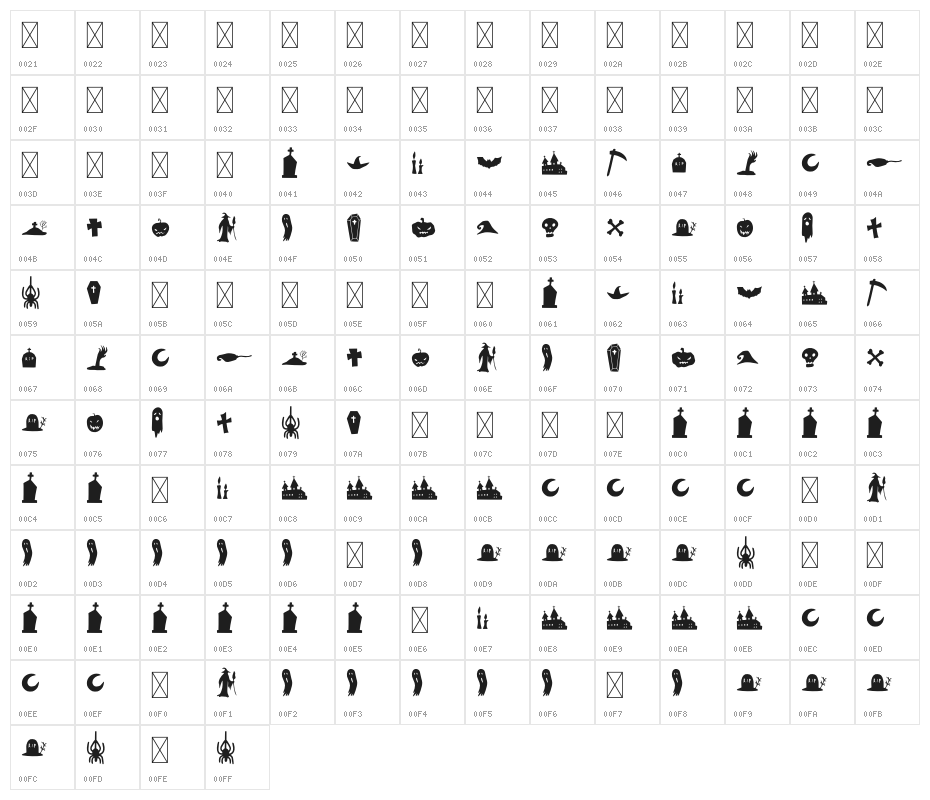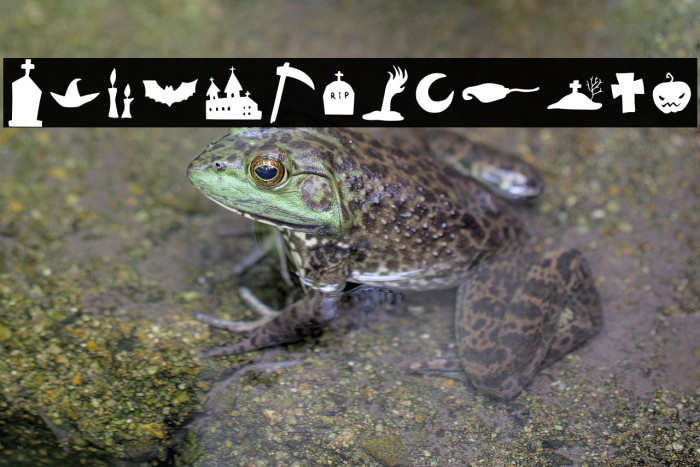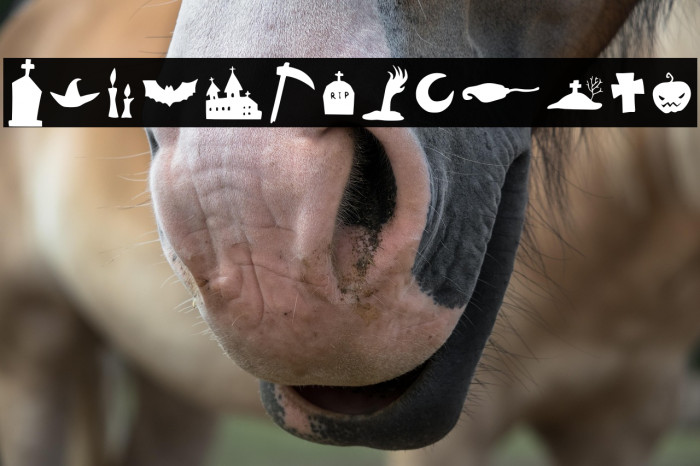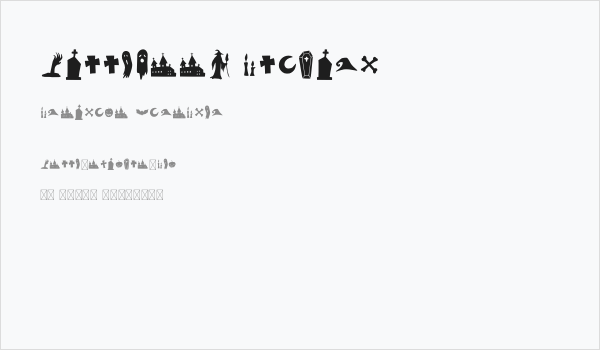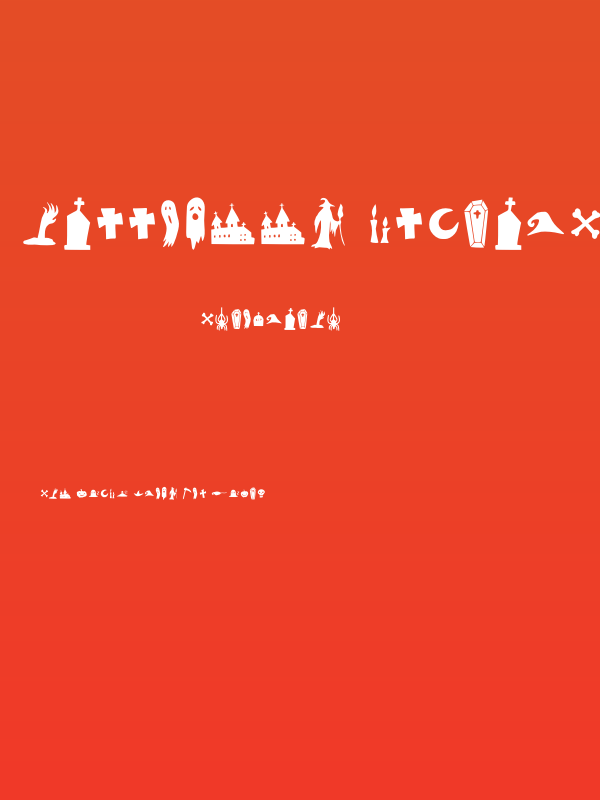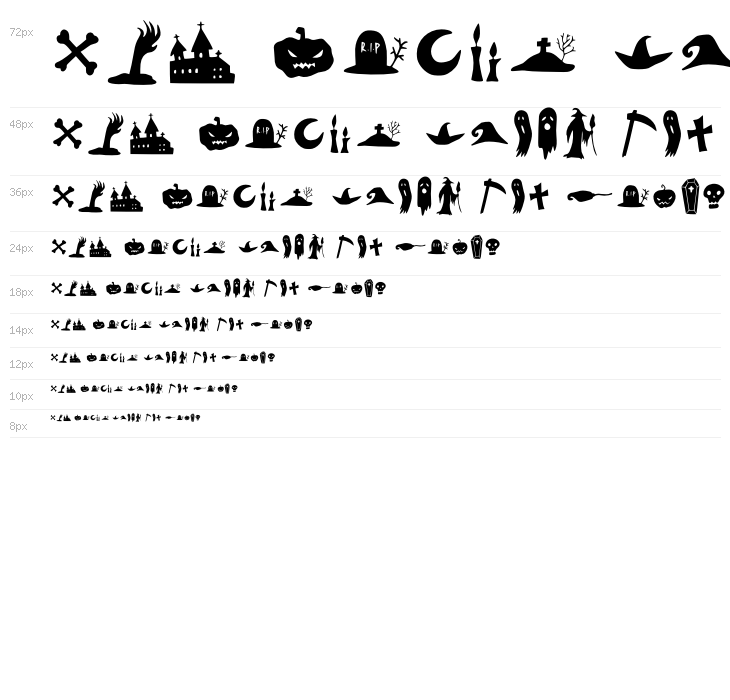
Halloween Clipart Font
Halloween Clipart Description
A decorative dingbat font featuring Halloween-themed silhouettes such as tombstones, ghosts, pumpkins, bats, haunted houses, witches, skulls, and other spooky icons. The glyphs are solid black and highly stylized, designed for visual impact rather than text readability.
| Overall Style | Decorative, Thematic, Playful |
| Use Case | Icons, Decorative elements, Themed graphics |
| Proposed Projects | Party invitations, event flyers, posters, social media graphics, scrapbooking, themed decorations. |